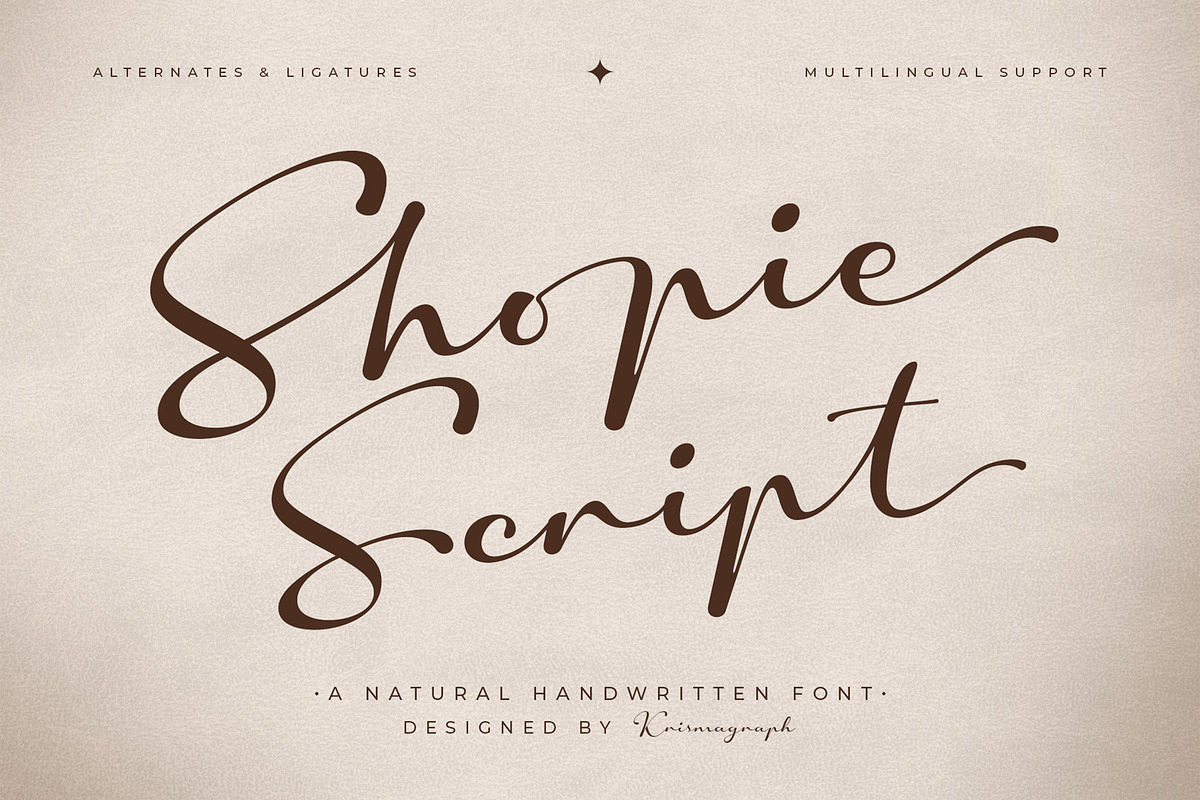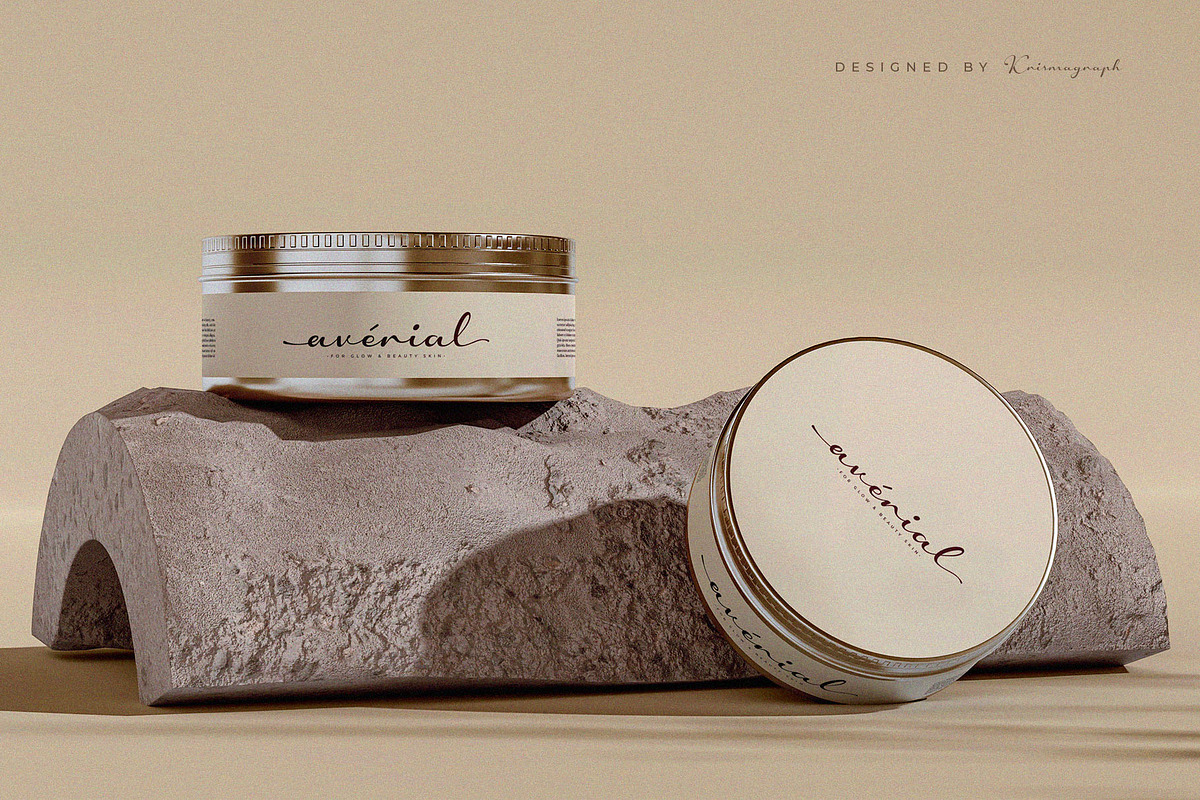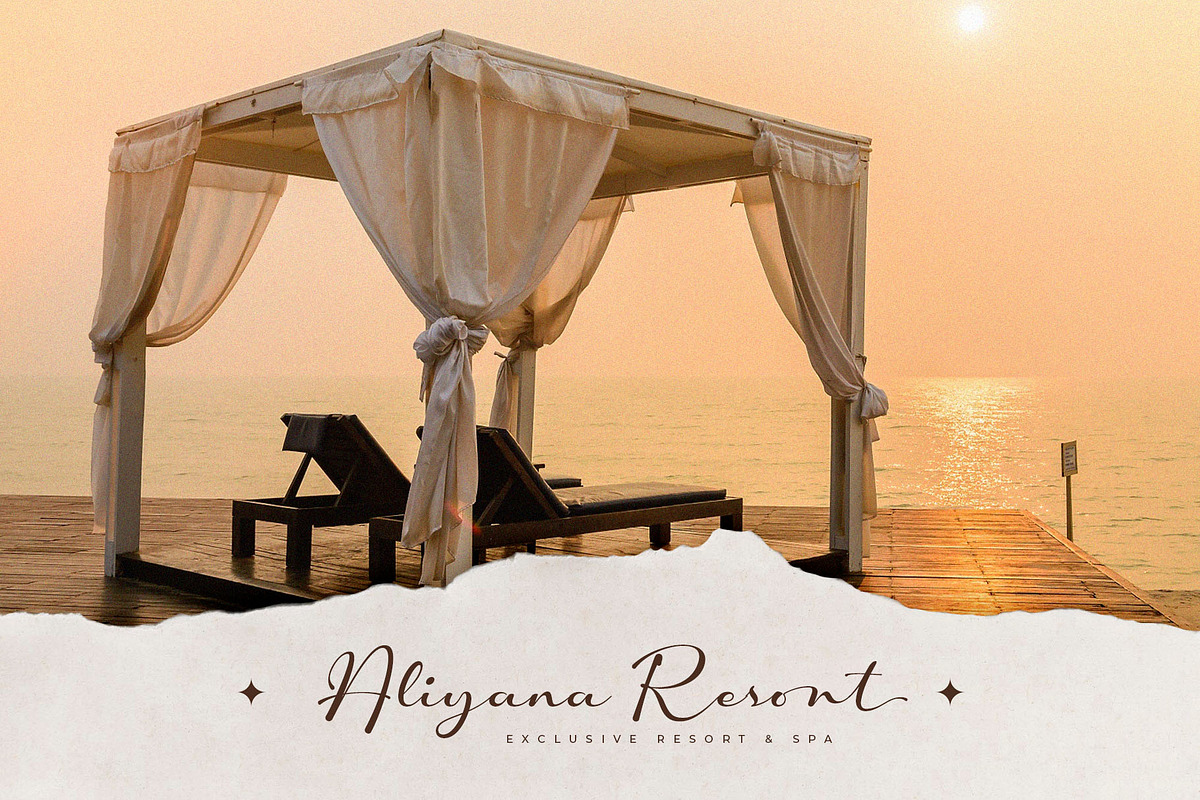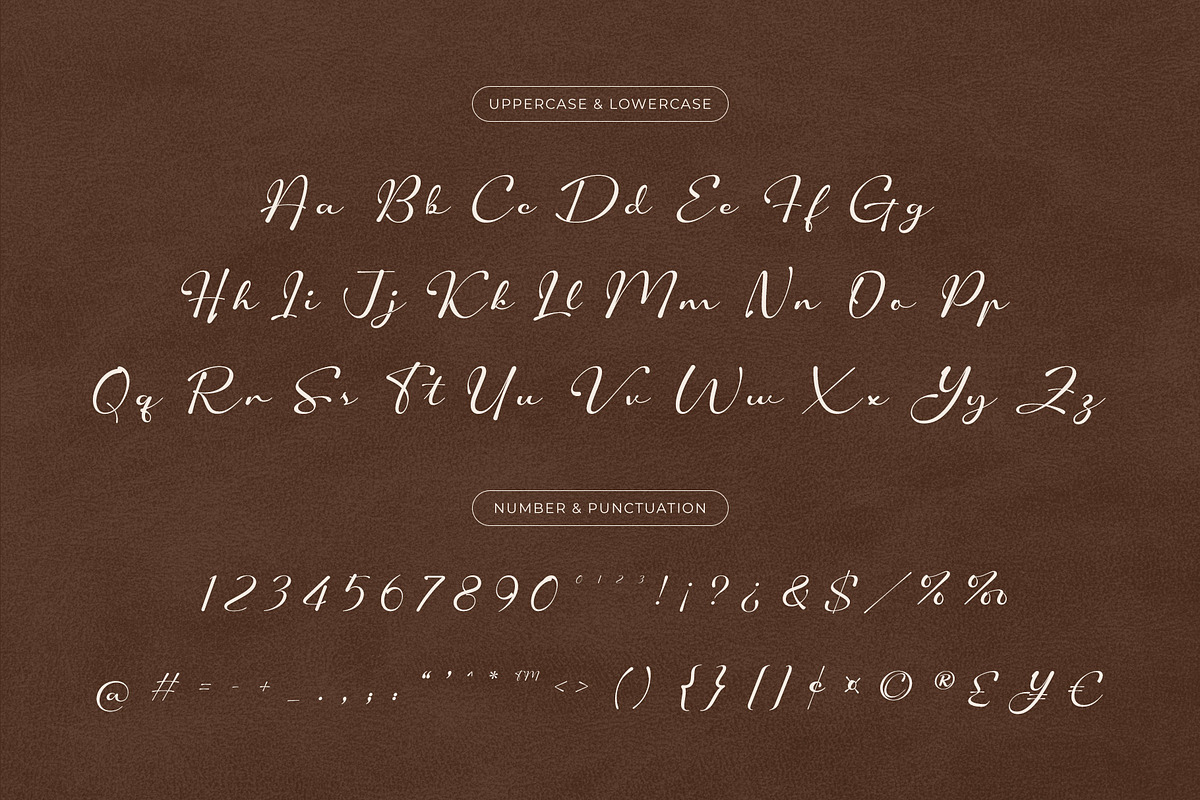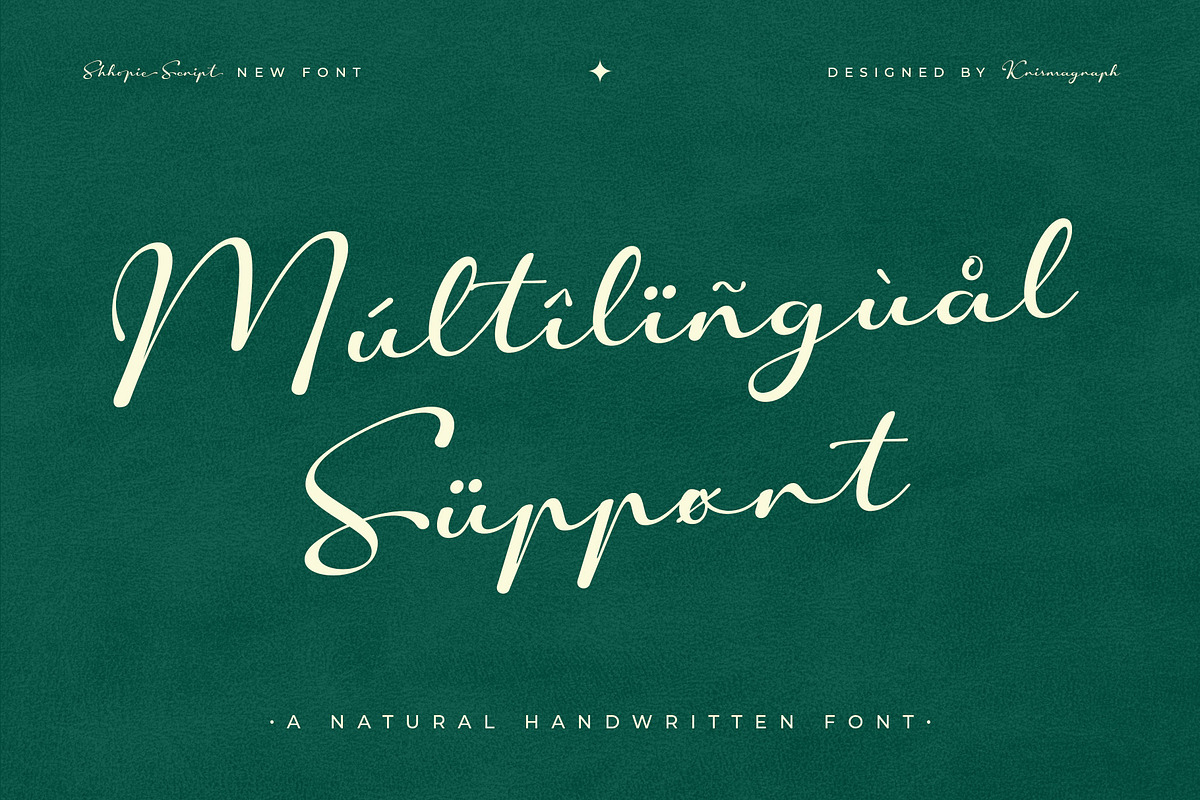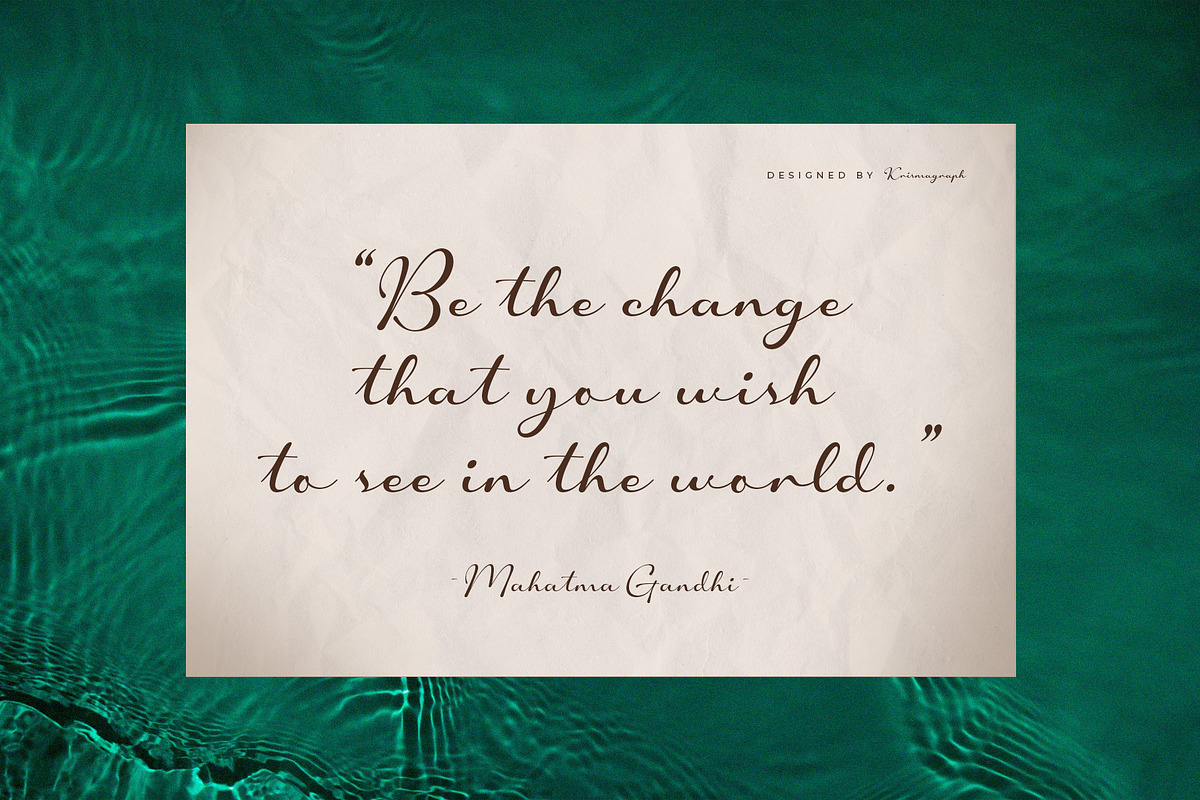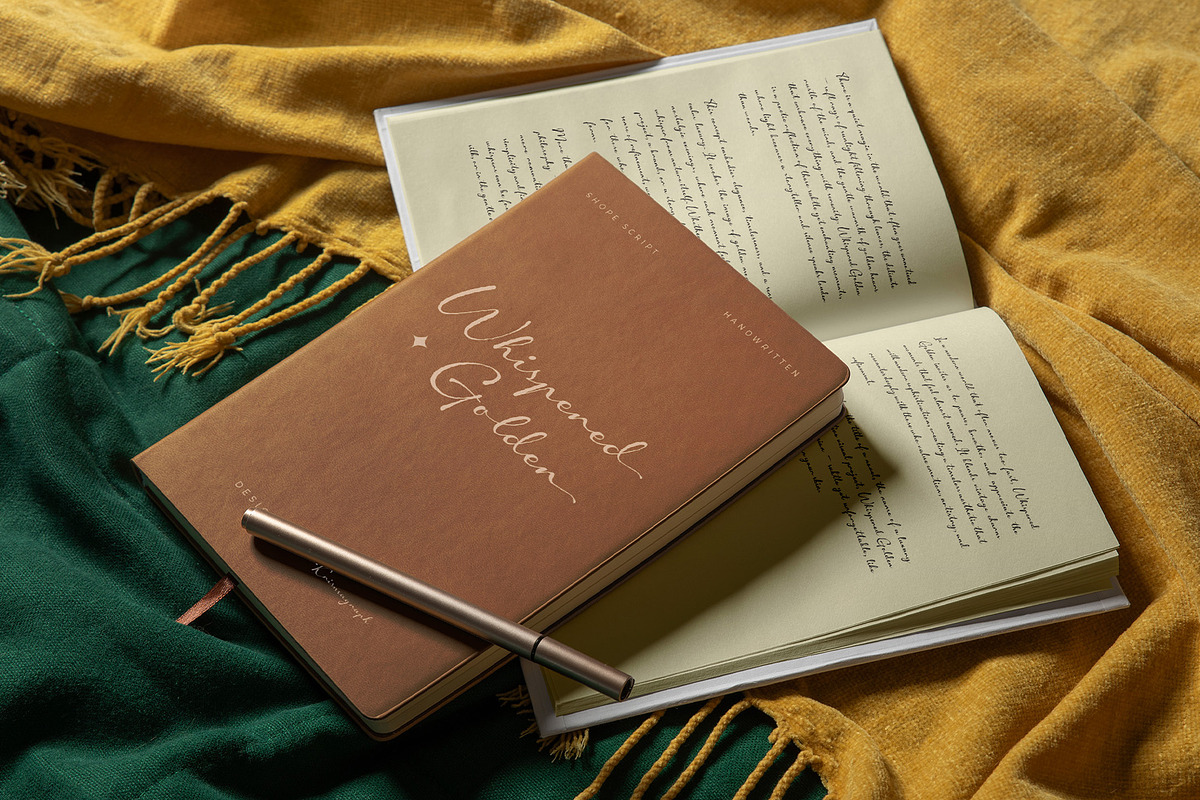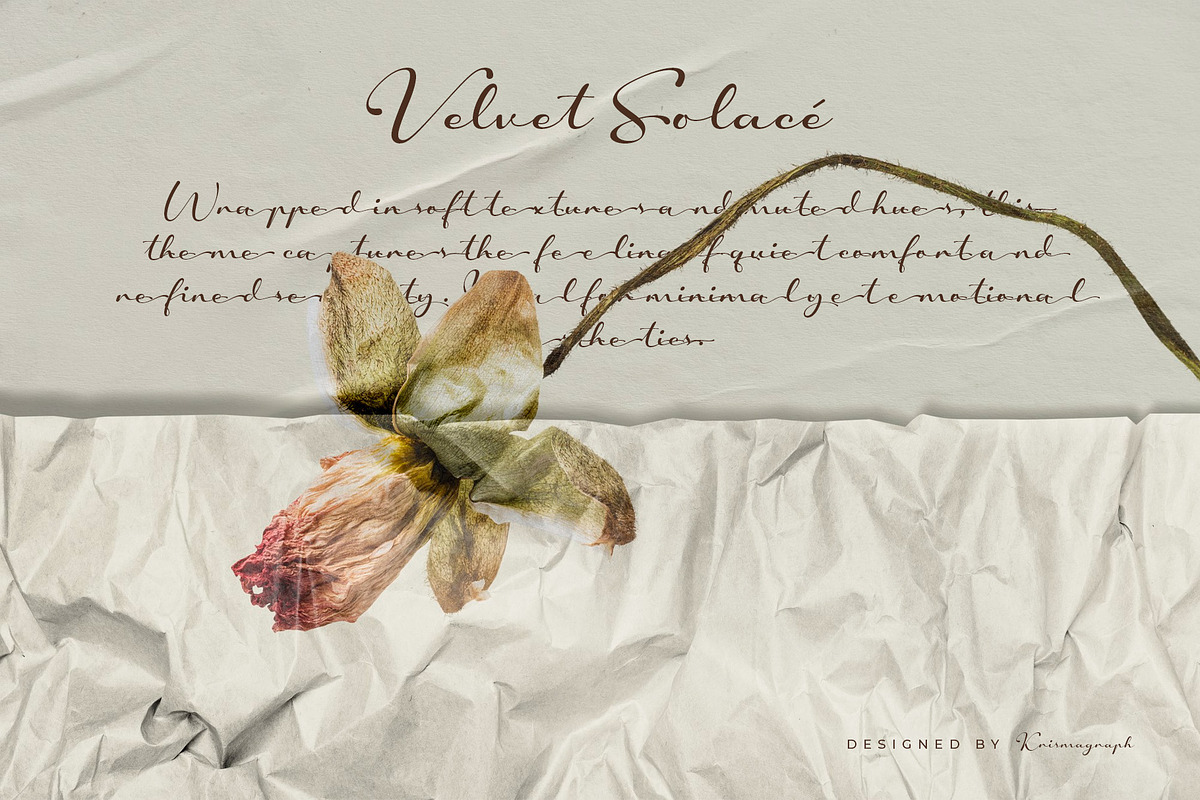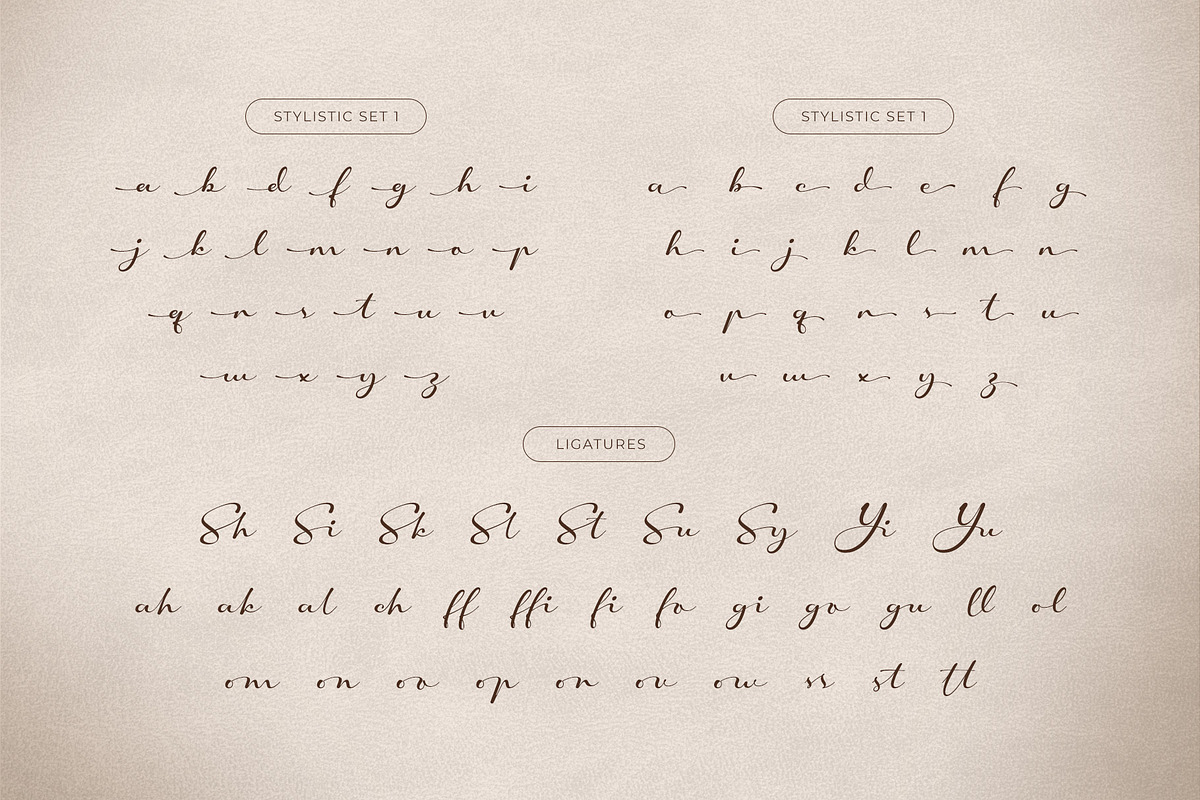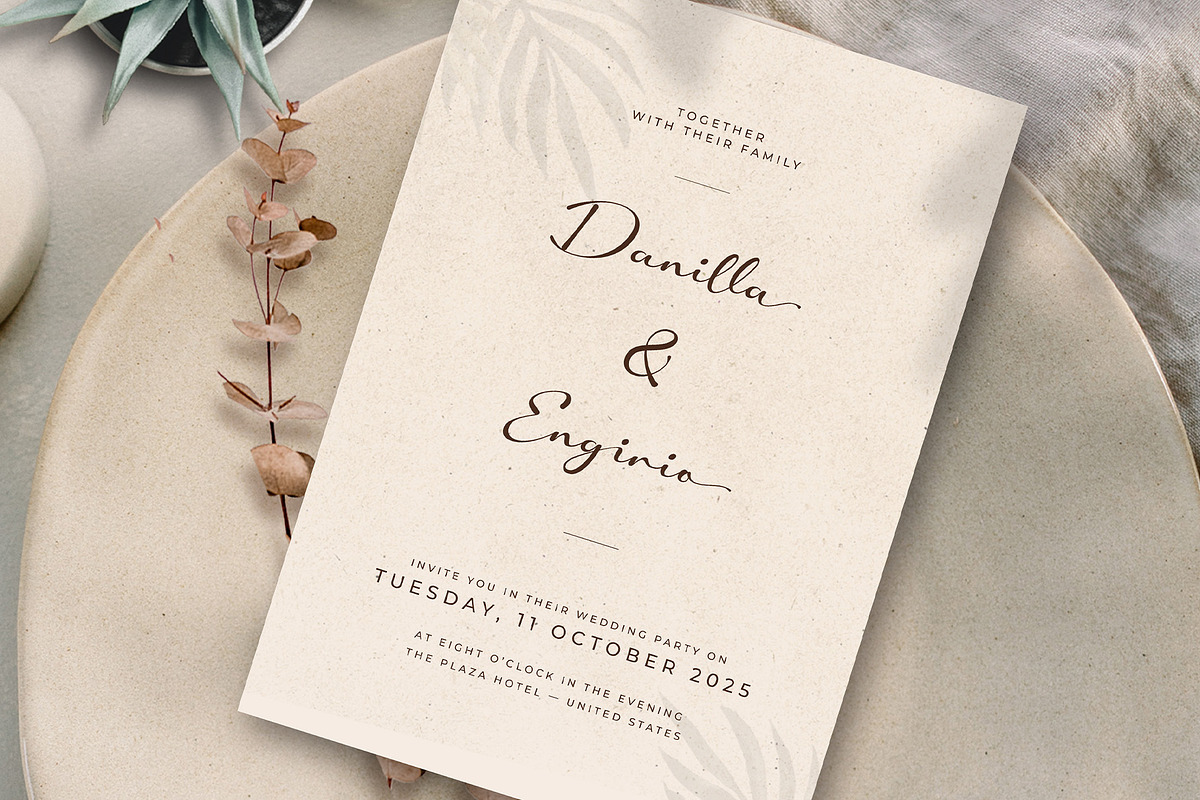
Shopie Script – Natural Handwritten
Meet Shopie Script, a natural handwritten font that captures the effortless beauty of authentic handwriting. Its organic strokes and fluid rhythm make it ideal for projects that need a personal, warm, and stylish touch, such as logos, stationery, social media templates, and elegant packaging design.
Shopie Script features beautiful ligatures and alternates, giving you freedom to create unique, handcrafted typography compositions. With its balance between modern simplicity and handwritten charm, this typeface adds an inviting human feel to any creative project.
- Numbers, fractions
- Punctuation and symbols